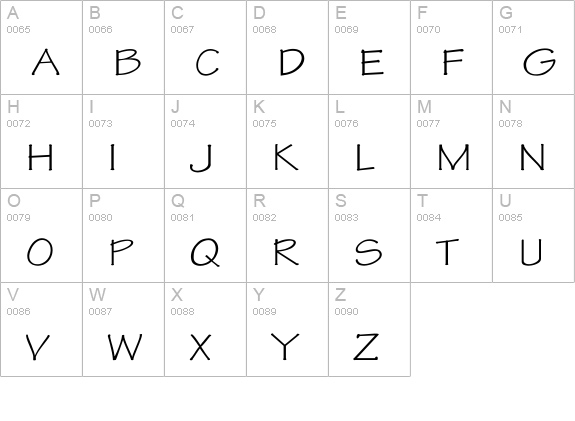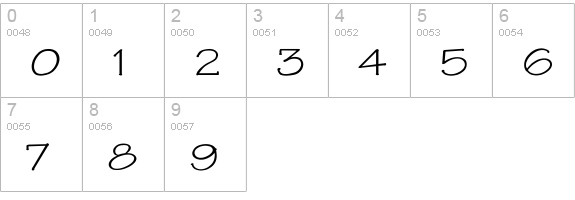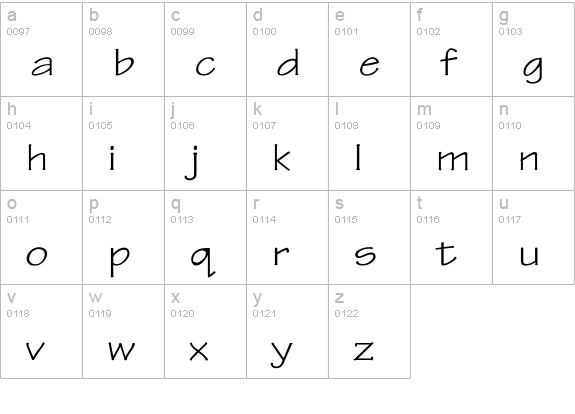
Tekton Wd Font Details
Tekton Wd is a stunning font that beautifully combines modernity with a touch of nostalgia. Its unique design elements make it stand out from the crowd, ensuring that any text set in this font will catch the eye and leave a lasting impression. With its bold and dynamic letterforms, Tekton Wd exudes confidence and strength. Whether used for headlines, logos, or even body text, this versatile font can adapt to any design project, adding a touch of sophistication and professionalism. One of the best features of Tekton Wd is that it is free to download. Yes, you heard that right! This incredible font is freely available for download at FontsMarket.com, making it accessible to designers, creatives, and enthusiasts alike. Now you can add this exceptional font to your collection without breaking the bank. Tekton Wd's versatility extends beyond its aesthetic appeal. It is a highly legible font, ensuring that your message is easily conveyed to your audience. Its clean and clear letterforms make reading a breeze, whether it's on a digital screen or in print. Designed with precision and attention to detail, Tekton Wd is the perfect choice for projects that require a font that is both modern and timeless. Its sleek and stylish design will elevate any design, ensuring that your work stands apart from the rest. So why wait? Head over to FontsMarket.com and download Tekton Wd for free today. Unlock the potential of this incredible font and take your designs to new heights. With its bold and captivating presence, Tekton Wd is a font that will never go unnoticed.